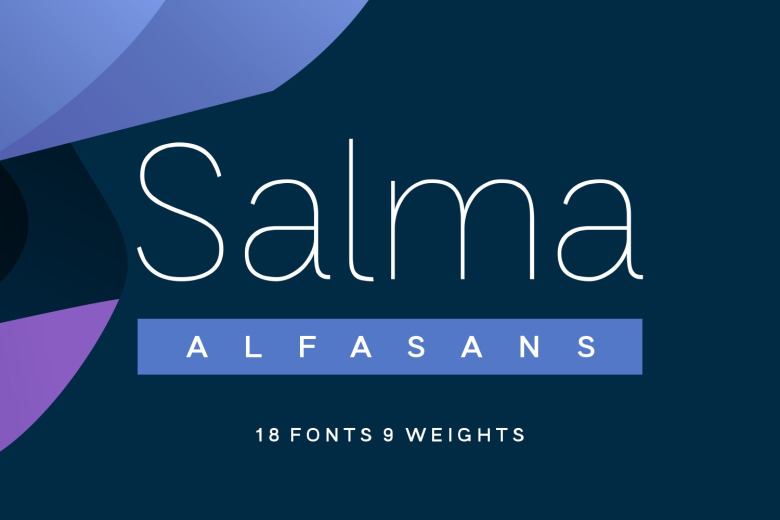
Salma Alfasans Font Family
Salma Alfasans Font
Salma Alfasans Font is a traditional-looking sans serif typeface that was inspired by the idea of mnemonics and the speed of how we read the letters in a word. It’s a modern sans serif font, created on February 25, 2021. The main inspiration for this font is its modern geometry and bold design, but looks elegant and smooth.
This font is well-crafted and has almost no contrast at all. The advantage of the SalmaAlfasans font is that it is very appropriate when used as a heading, but also looks good when used as body text. With many weight options, you can freely adjust the design scenario based on your needs.
Salma Alfasans is very good for logos, branding, books (headings, sub headings, and body text), invitations, business cards and others.
Salma Alfasans Sans Serif Font Family